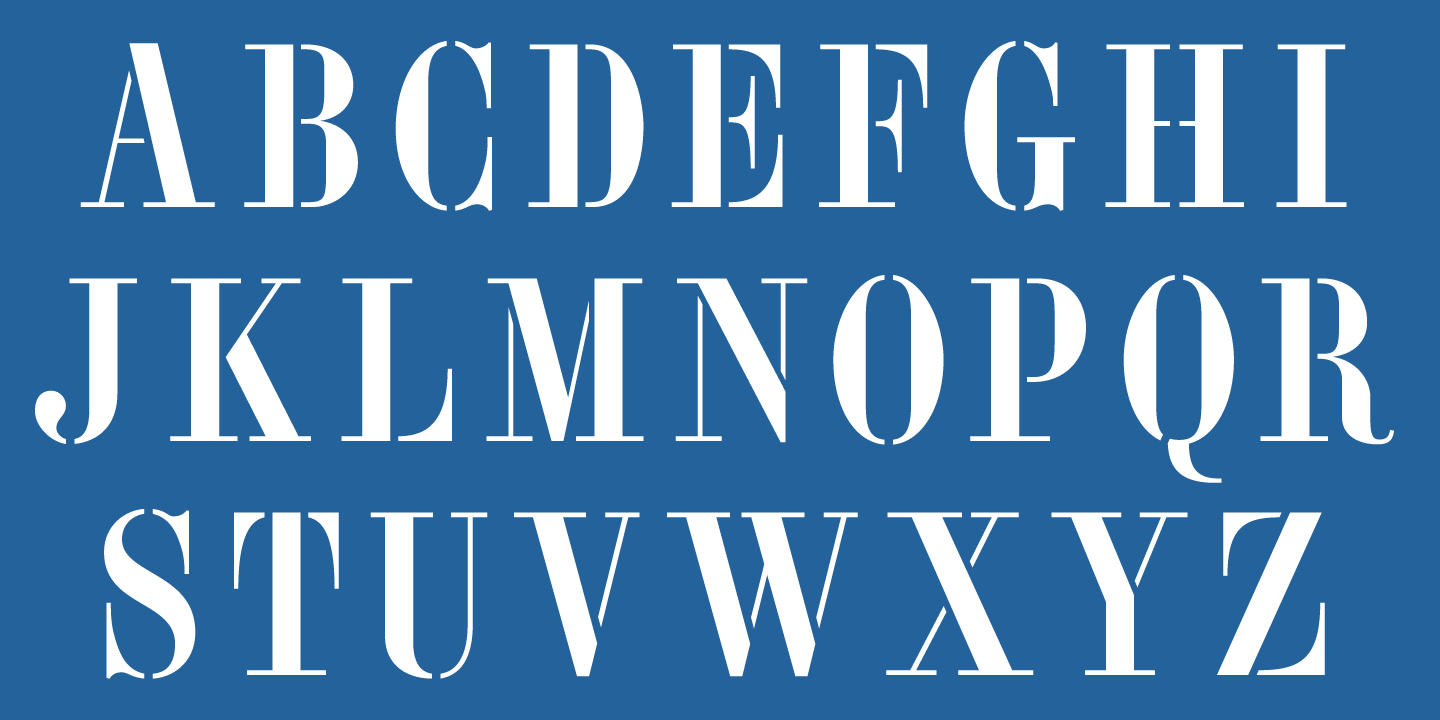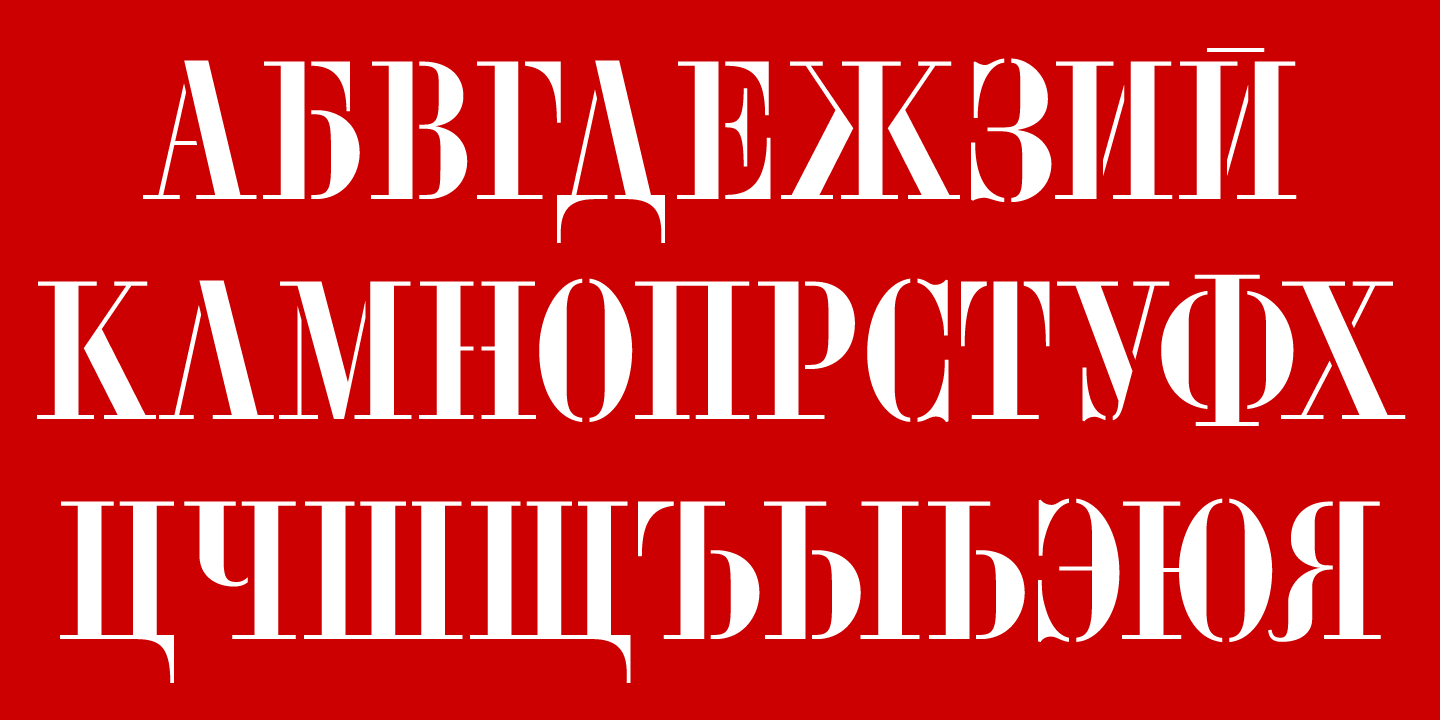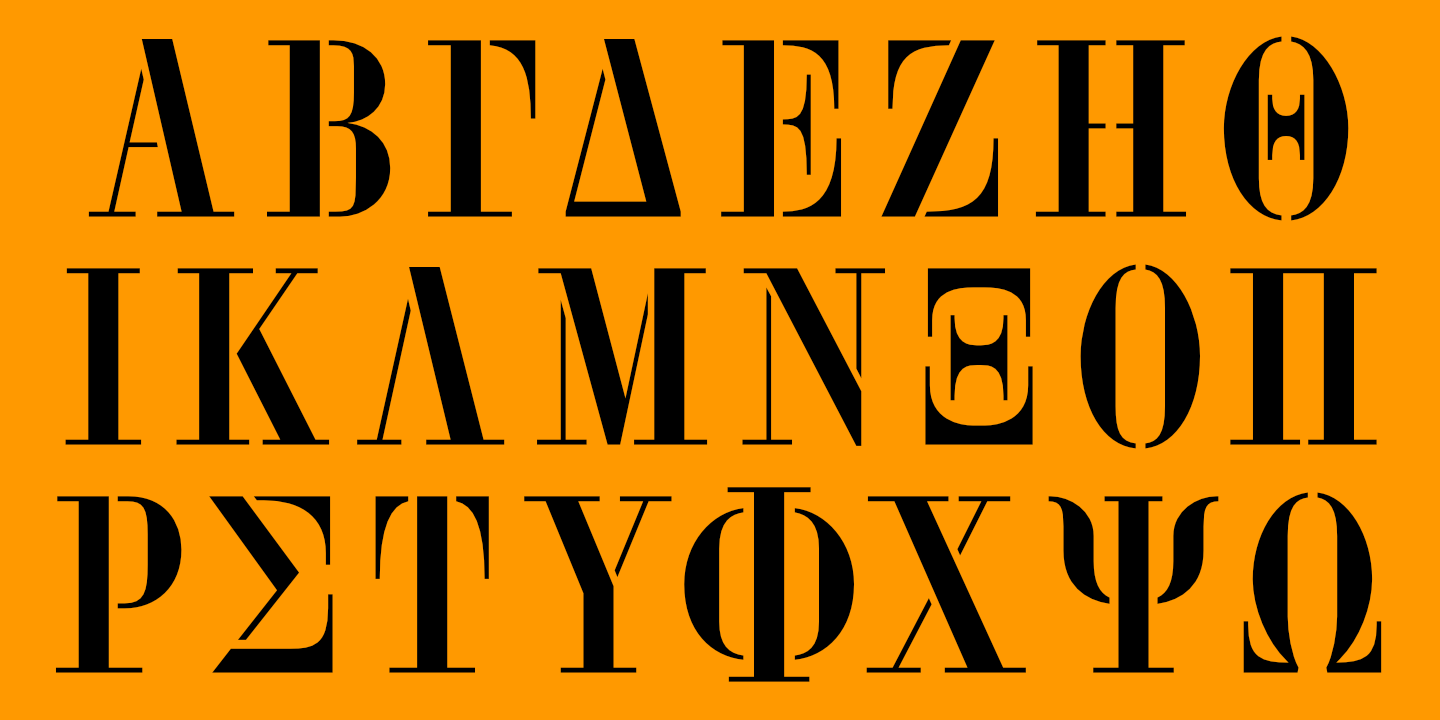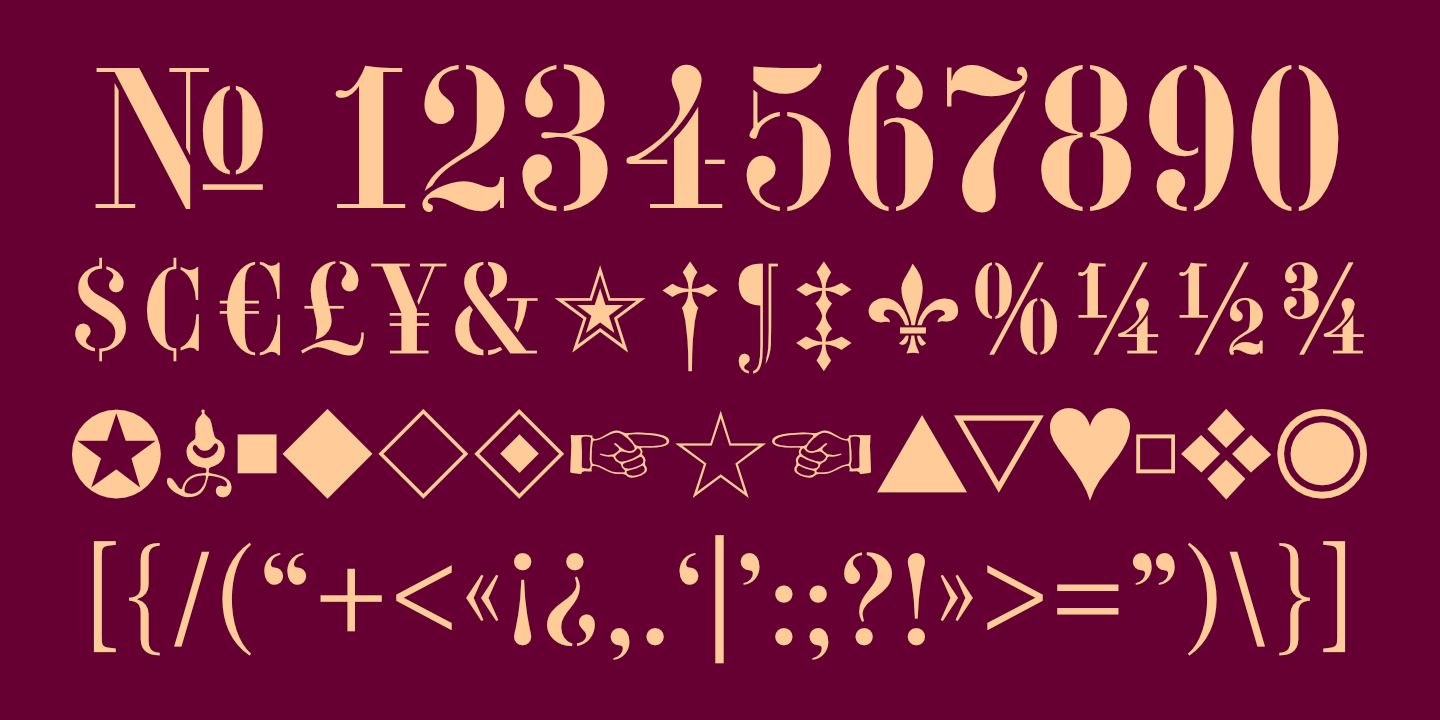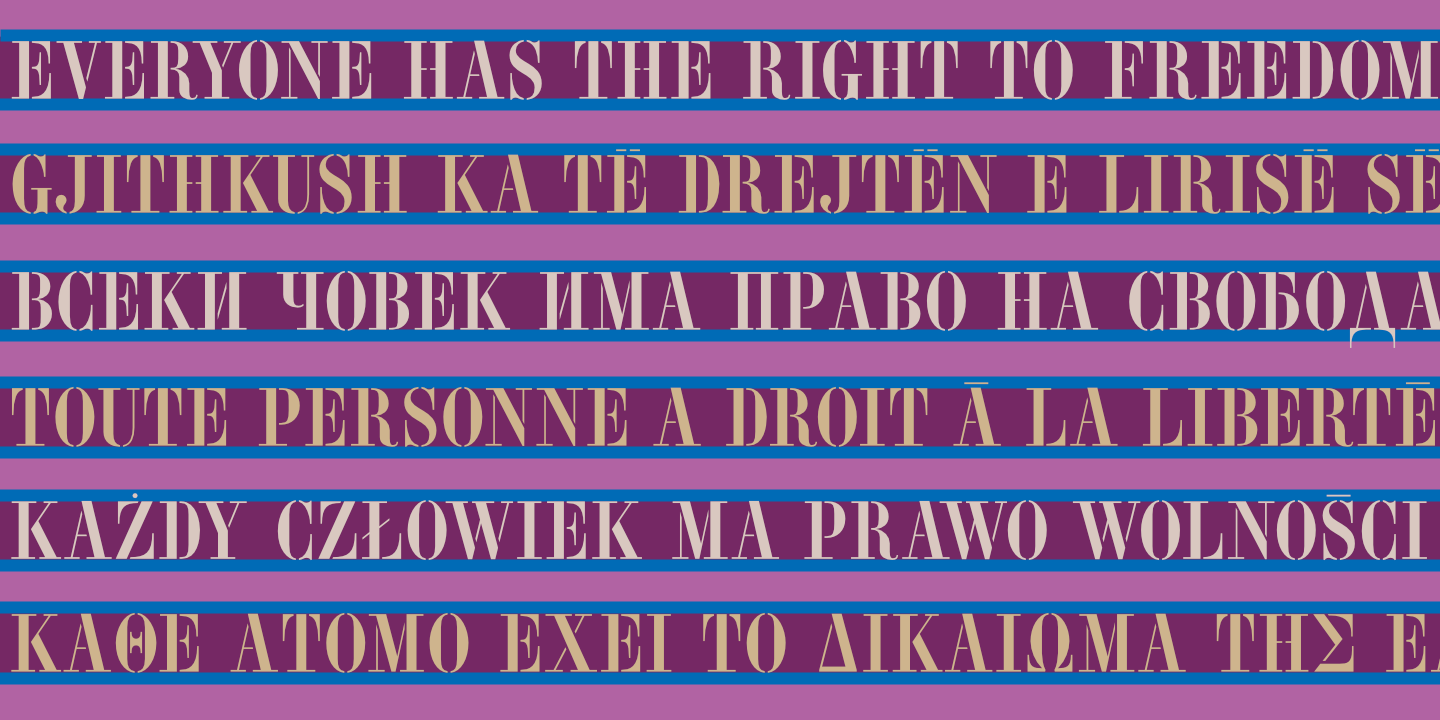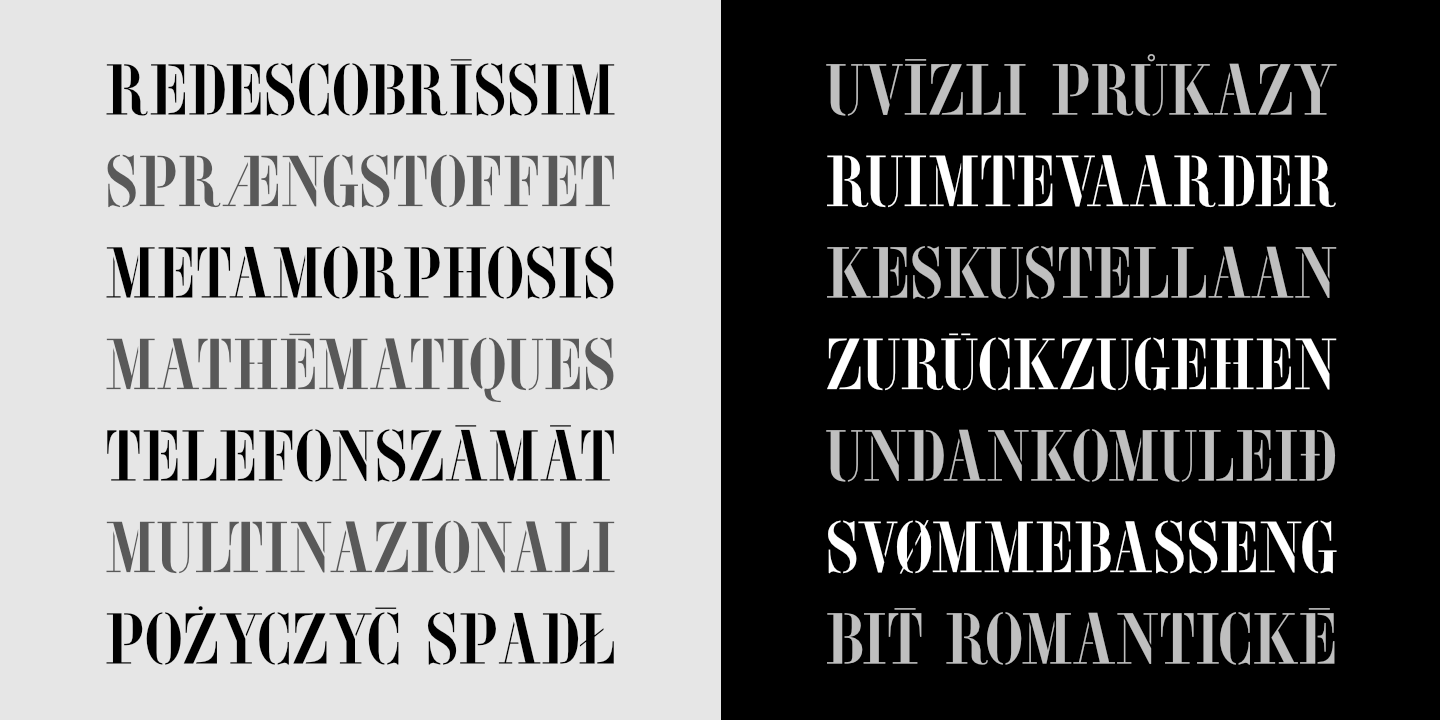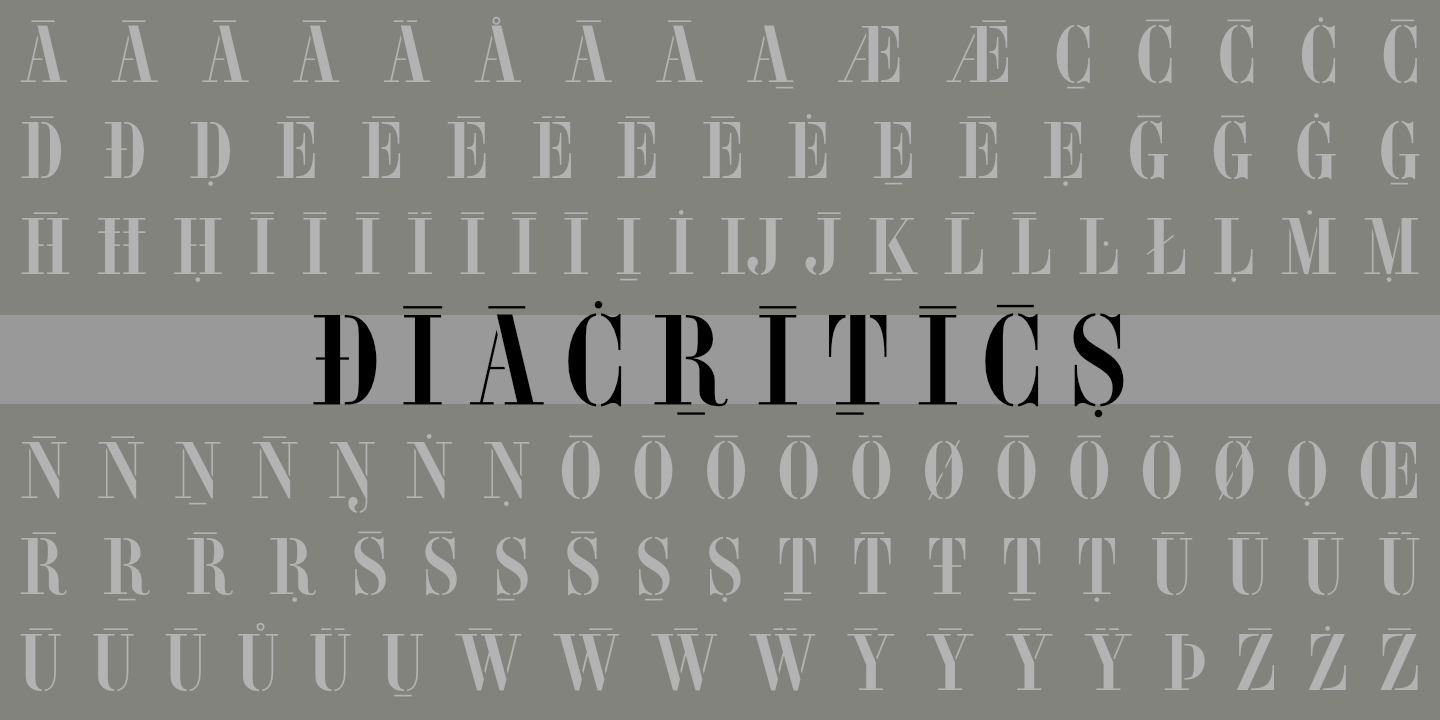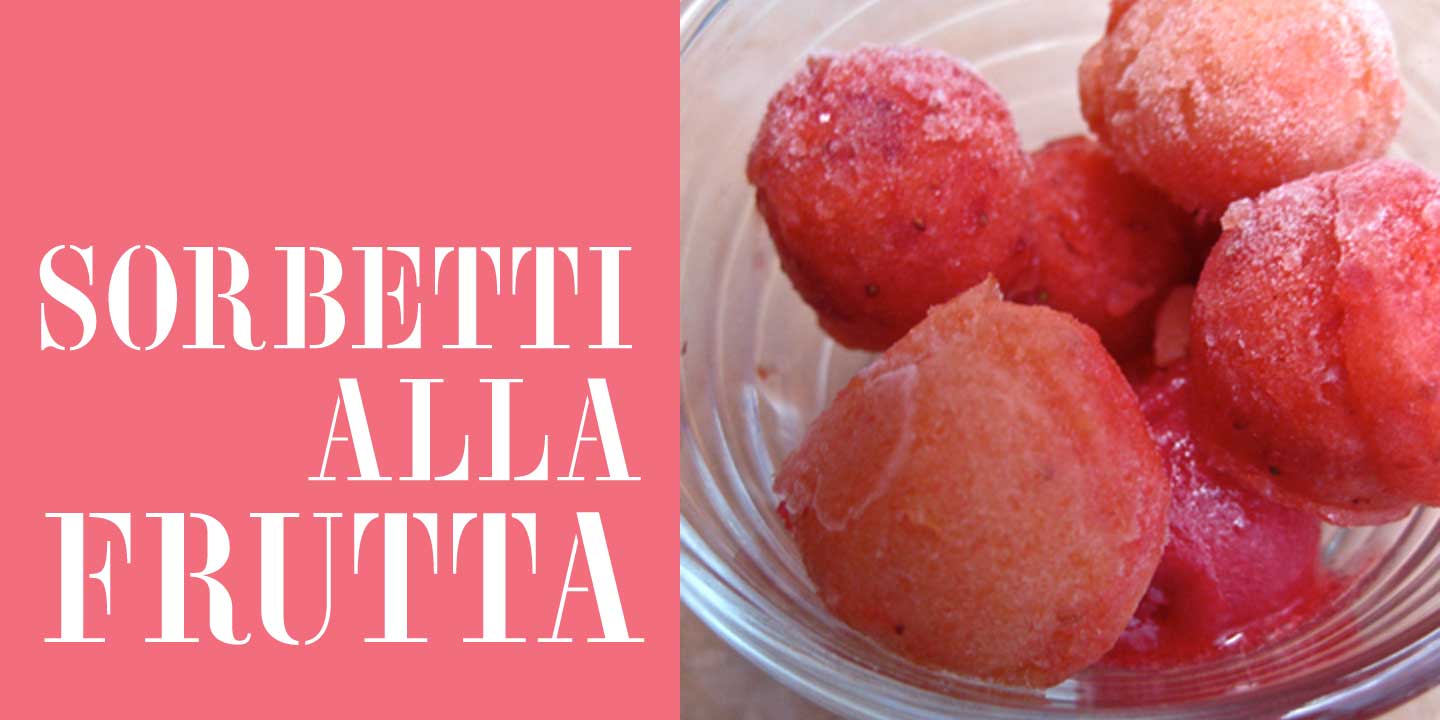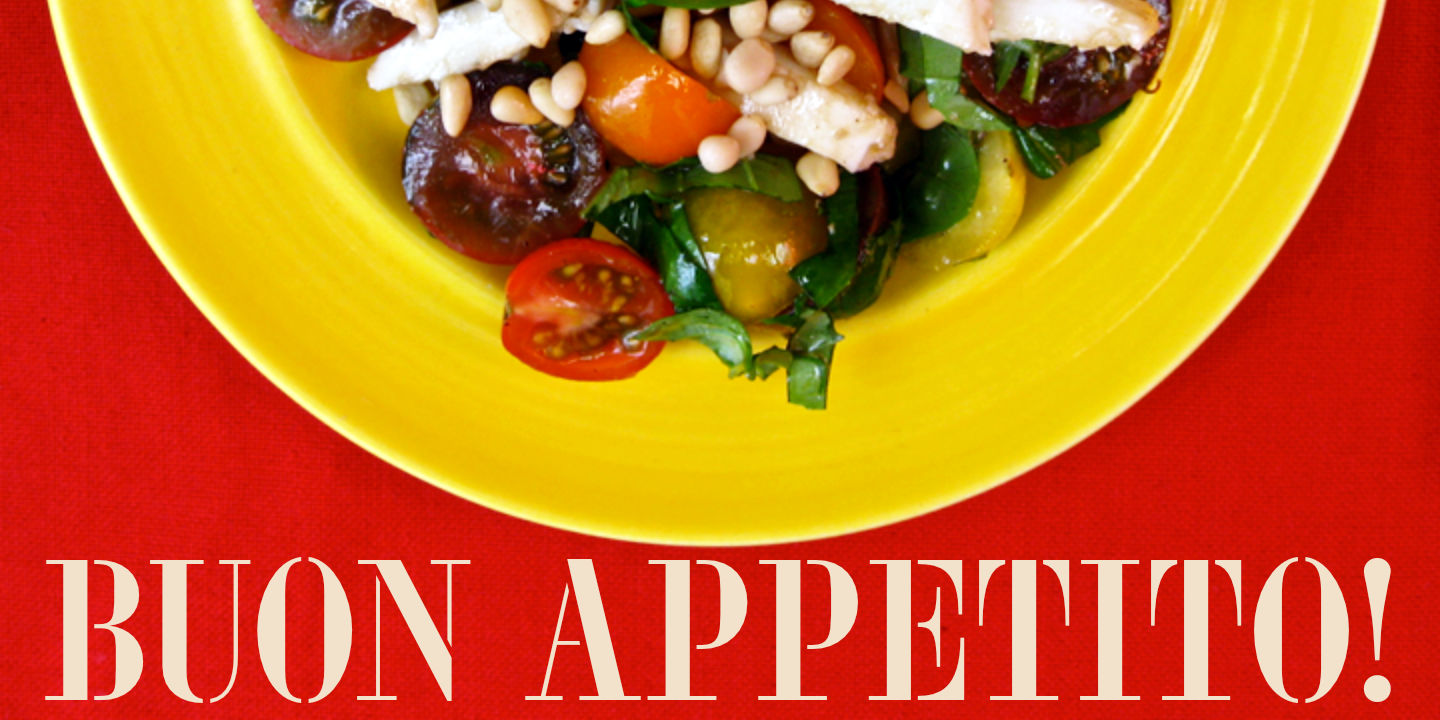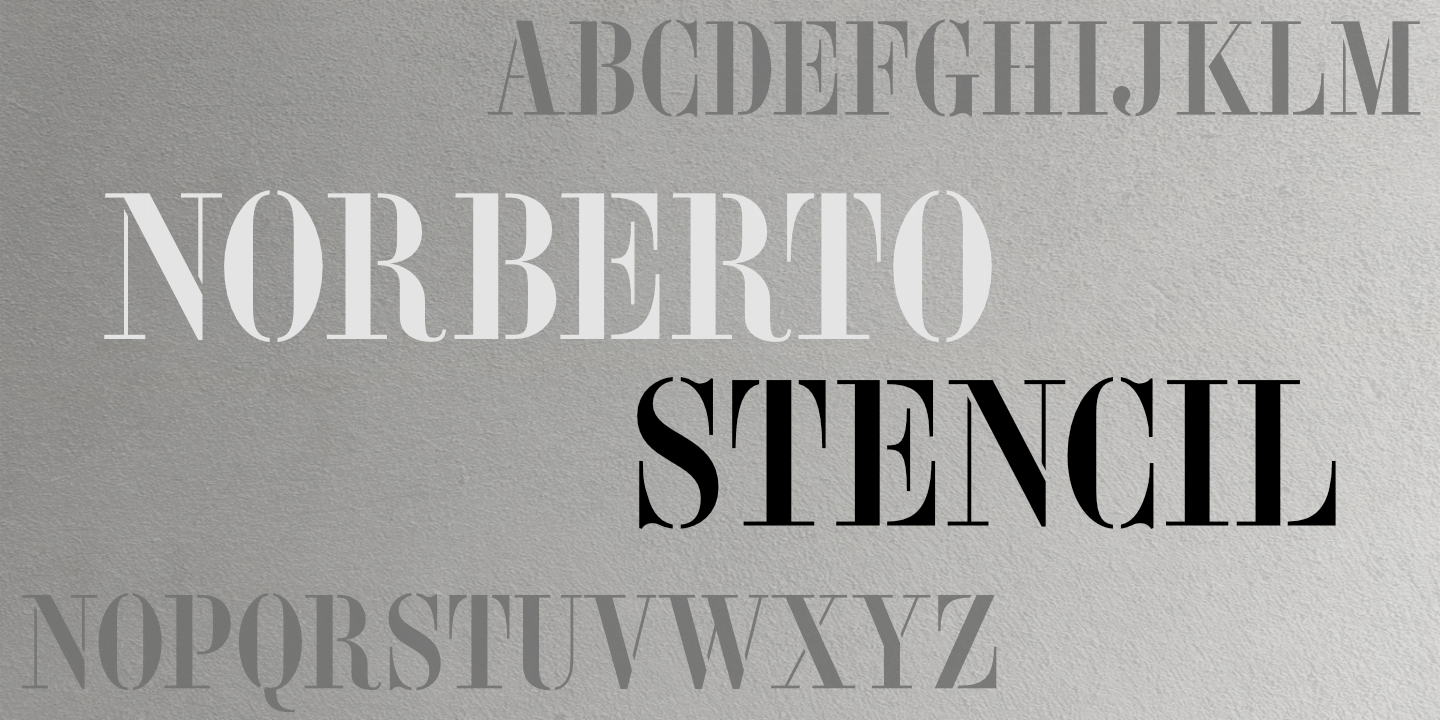
Norberto Stencil: Basic Latin alphabet. Supports most European languages. See Glyphs for details.
Norberto Stencil supports most languages that use the Cyrillic alphabet, such as Russian, etc. See Glyphs for details.
Norberto Stencil supports modern (monotonic) Greek. See Glyphs for details.
Norberto Stencil has charmingly quaint numerals.
Norberto Stencil supports most European languages.
Notice that light text on a dark background appears slightly heavier than dark text on a light background.